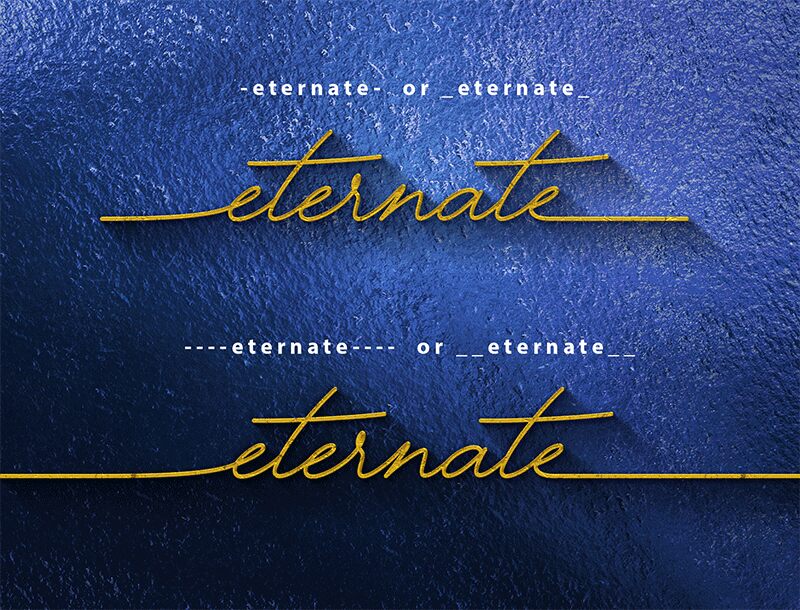
Eternate-Two
Eternate Two font by Youssef Habchi is a light handwritten font designed with elegant flowing curves, giving it a beautiful modern style. Each letter looks as if penned with utmost care and an expensive ink pen. This exceptional typeface combines script styles with informal elegance to present a modern-casual look that adds uniqueness to designs left and right.
Use Eternate Two on product packaging, apparel, invitations, business cards, poster titles, magazine layouts, advertising headers, branding materials for hotels & restaurants. Its personal touch looks stunning in opening or closing credits of films too! Wait no more – this free handwritten font is ready for download and yours to enjoy today!